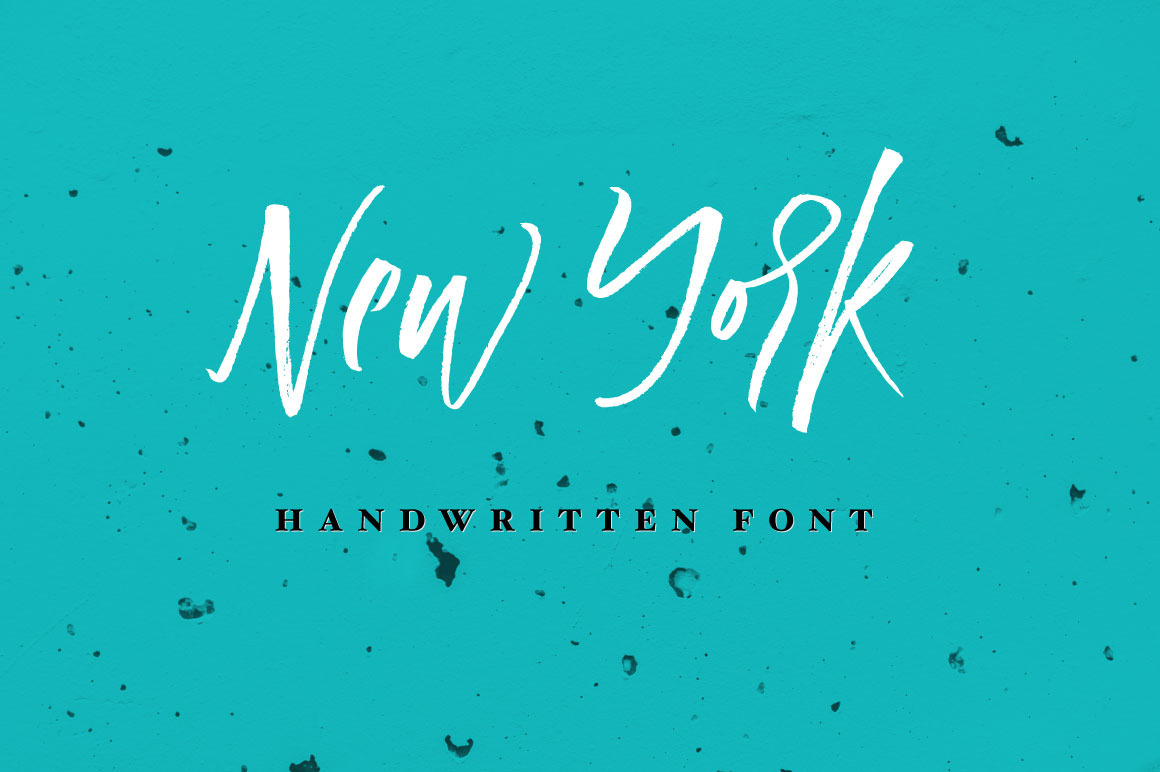
New York Handwritten Font
Introducing New York handwritten script font
A handwritten script font containing upper & lowercase characters, numerals, punctuation and a ton of ligatures.
- Fonts include multilingual support.
- A lot of ligatures and alternative letters.